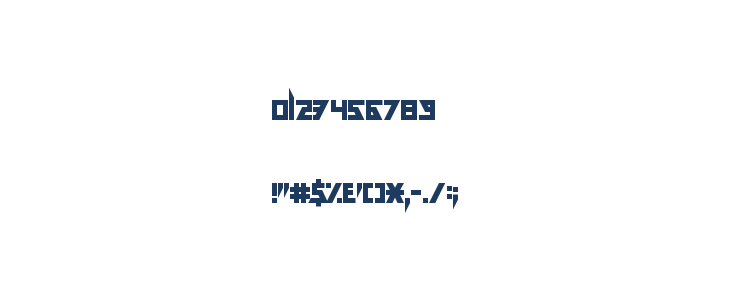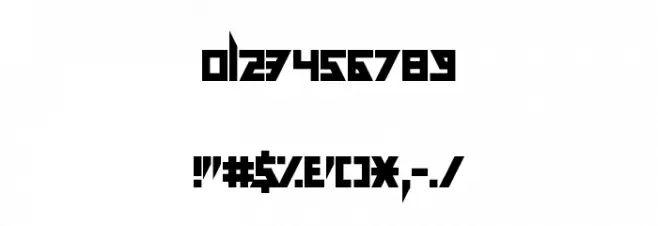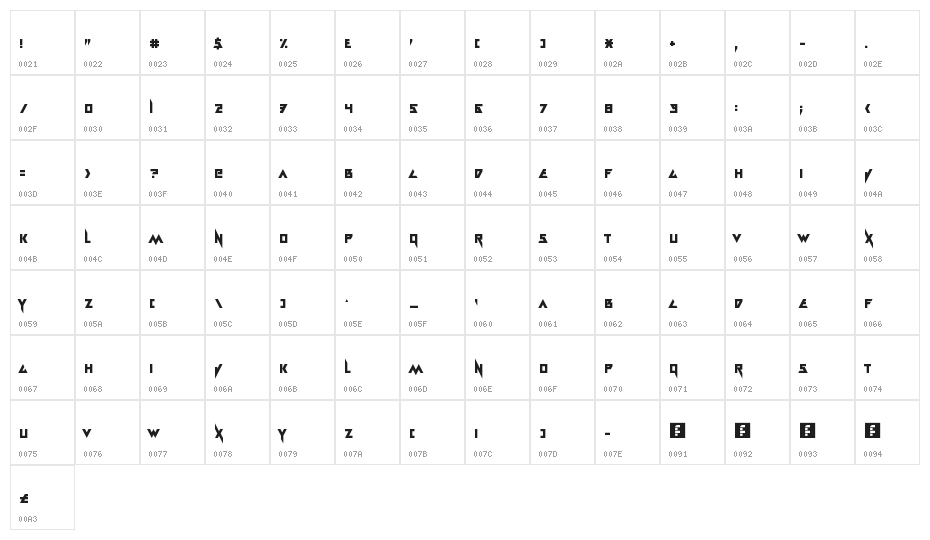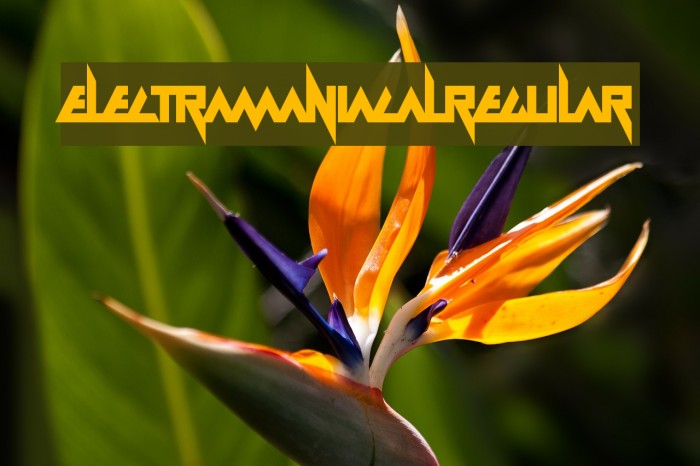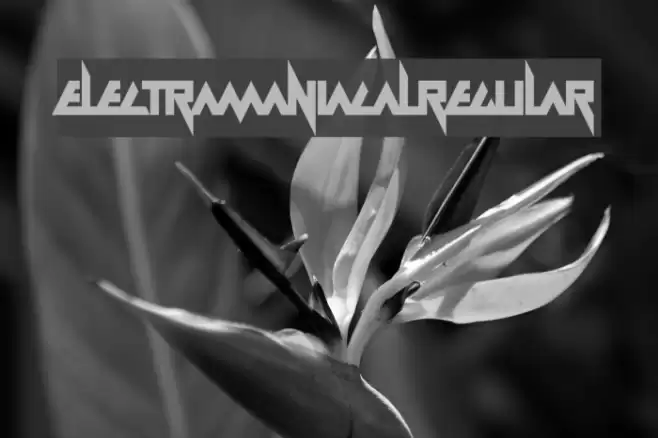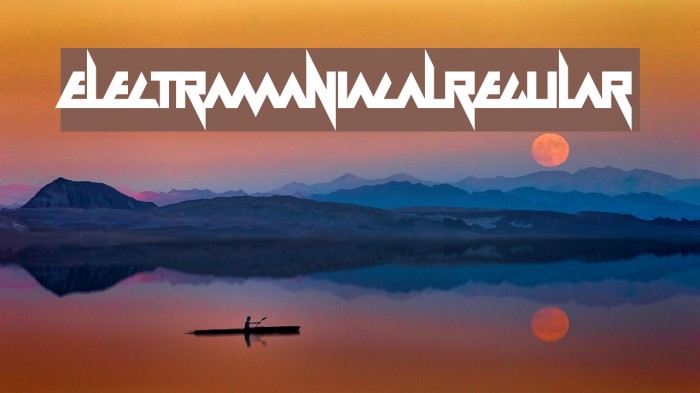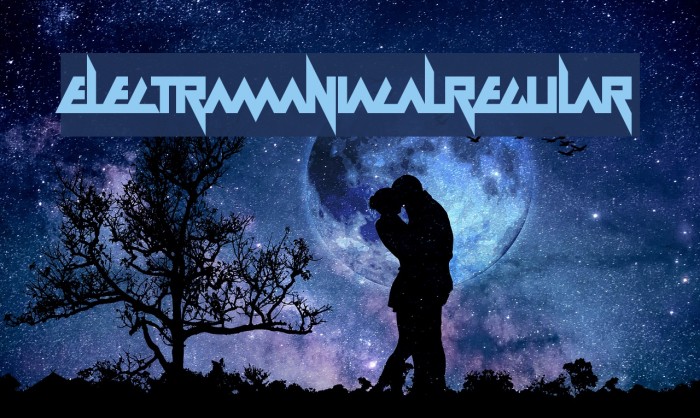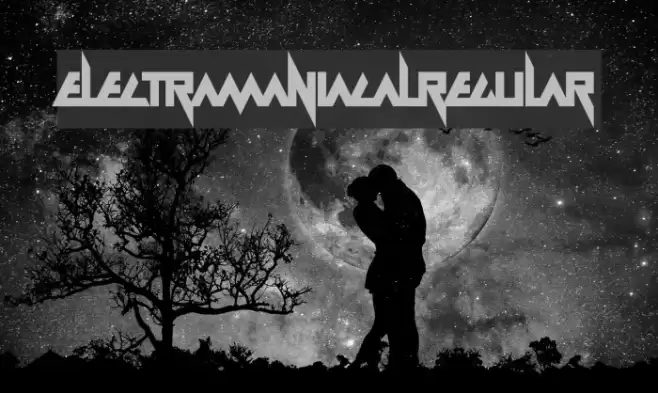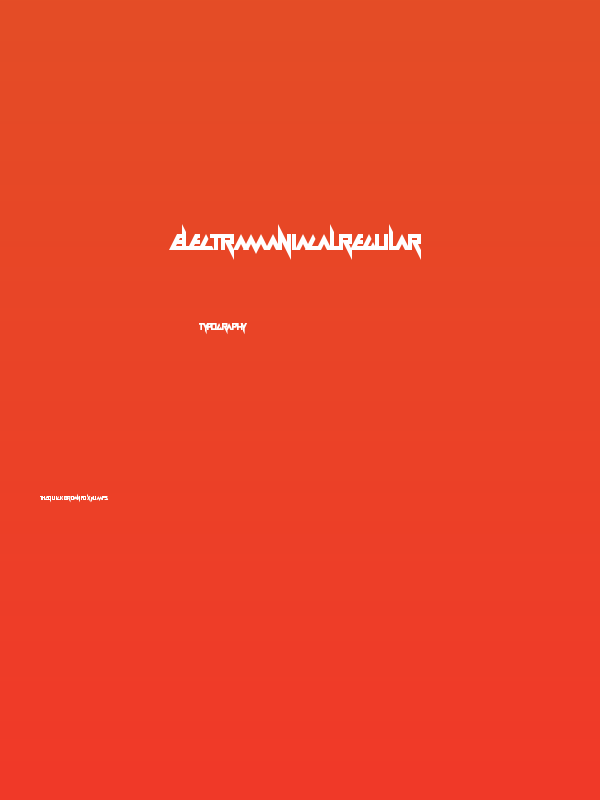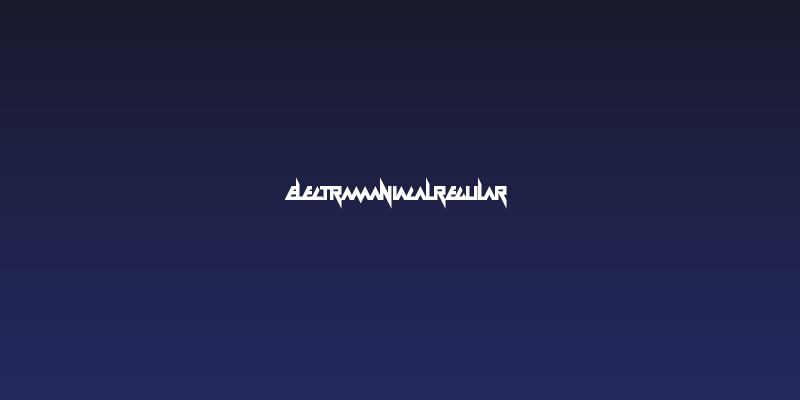
Electramaniacal Regular Font
Electramaniacal Regular Description
This font features a bold, angular design with sharp edges and a futuristic aesthetic. The characters are constructed with geometric precision, giving them a dynamic and aggressive appearance. The uppercase and lowercase letters maintain a consistent style, with each character exhibiting a unique angular cut that enhances the overall edgy look. The numbers and special characters follow the same design principles, ensuring uniformity across all glyphs. This font's striking appearance makes it ideal for projects that require a modern and bold statement.
| Overall Style | Futuristic, Edgy |
| Proposed Projects | Ideal for sci-fi themed projects, video game titles, posters, and branding that requires a modern and bold statement. |